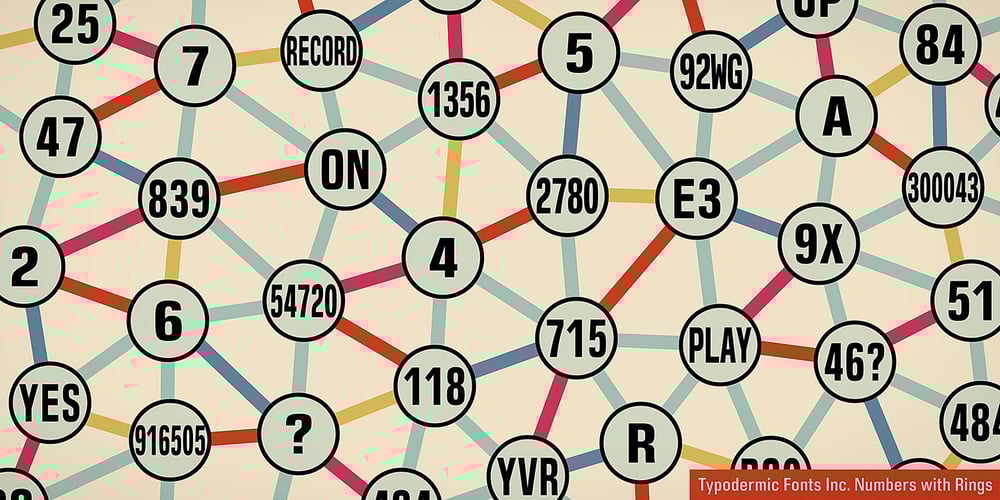
Numbers With Rings Font Family was designed by Ray Larabie and published by Typodermic. Numbers With Rings contains 2 styles and family package options. Unlock a new dimension of numerical design with Numbers with Rings—a revolutionary typeface that transforms ordinary digits into striking visual elements. It’s a sophisticated system that seamlessly blends form and function, allowing you to create ringed numbers up to 999,999 with effortless precision.Numbers with Rings harnesses the power of OpenType technology to elevate your typography game. Simply select your desired ring size, type your digits, and watch as the font’s intelligent ligatures automatically encapsulate your numbers in perfect circular harmony. But the innovation doesn’t stop there—this versatile system extends its circular embrace to letters and alphanumeric combinations, offering boundless possibilities for creative expression. For designers who demand more than monochrome, Numbers with Rings delivers. The filled ring option transforms these circular marvels into vibrant focal points, allowing you to inject bursts of color into your compositions. This feature isn’t just about aesthetics—it’s a powerful tool for creating visual hierarchies, guiding the eye, and enhancing the overall readability of your designs.The applications are limitless. From infographics that pop with colorful data points to sleek user interfaces where ringed numbers guide navigation, from eye-catching product labels to engaging educational materials—Numbers with Rings adapts to your creative vision. It’s equally at home in the world of print and digital design, ensuring your numerical displays command attention across all media. But Numbers with Rings isn’t just about standing out—it’s about precision and clarity. The carefully crafted circular enclosures ensure that your numbers remain legible at various sizes, making this typeface as practical as it is visually striking. Whether you’re designing for billboards or business cards, Numbers with Rings maintains its integrity and impact.For designers who understand that numbers are more than just digits, for brands that seek to quantify their message with style, Numbers with Rings is the definitive choice. In a world of information overload, make your numbers count—make them shine with Numbers with Rings.For more details on how Numbers with Rings works, read the PDF guide. https://typodermicfonts.com/wp-content/uploads/2021/05/numbers-with-rings-manual-2021.pdf